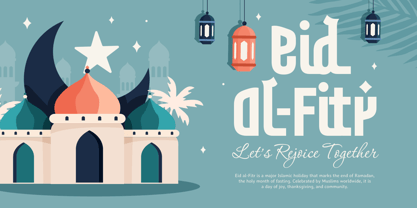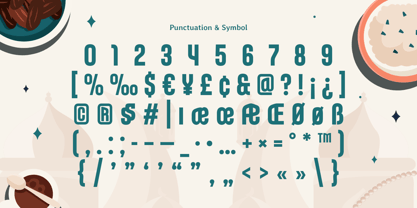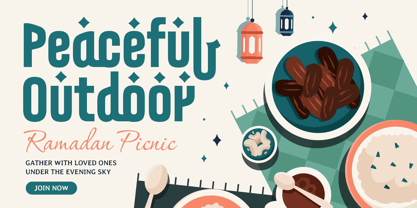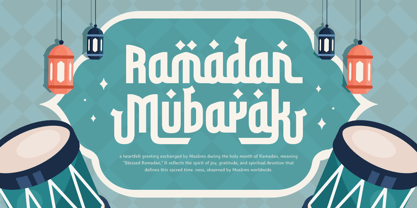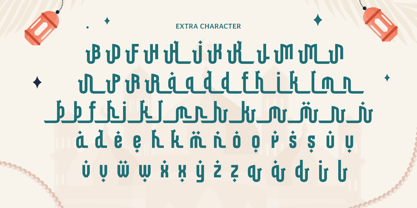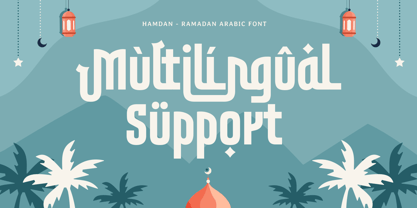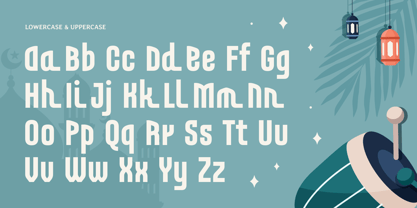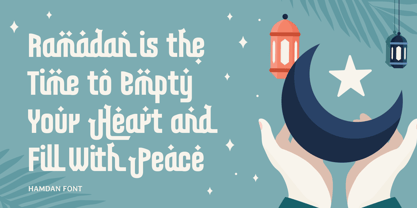
Hamdan
The Hamdan Font Family was designed by Zamroni Hamzah and published by Sensatype Studio. Hamdan contains 1 styles. More about this family
Hamdan - Ramadan Arabic Font
Hamdan is a beautifully crafted Arabic font designed to enrich your Ramadan and Islamic-themed projects. Its stylish curves and modern design make it an ideal choice for festive branding, invitations, banners, and social media content. Whether you're preparing for Ramadan events or creating spiritual messages, Hamdan offers the perfect blend of tradition and contemporary appeal.
Drawing inspiration from classic Arabic calligraphy, Hamdan features clean lines and well-balanced forms, reflecting the essence of Ramadan with grace and style. This font is a versatile choice for both digital and print media, making your designs visually captivating while staying true to their cultural roots.
Let Hamdan bring a touch of authenticity and modernity to your Ramadan creations. Its luxurious character ensures that your projects leave a lasting impression, adding depth and meaning to every message.
Hamdan Ramadan Arabic Font Features:
• Elegant Arabic Script for Ramadan Themes
• Versatile for Branding, Invitations, and Social Media
• Punctuation, Numbers, and Symbols
• Uppercase and Lowercase
• Opentype Features
Multilingual Characters available for:
Afrikaans, Albanian, Asu, Basque, Bemba, Bena, Breton, Chiga, Cornish, Dutch, English, Estonian, Filipino, Finnish, Friulian, Galician, German, Gusii, Indonesian, Irish, Italian, Kabuverdianu, Kalenjin, Kinyarwanda, Luo, Luxembourgish, Luyia, Machame, Makhuwa-Meetto, Makonde, Malagasy, Manx, Morisyen, North Ndebele, Nyankole, Oromo, Portuguese, Quechua, Romansh, Rombo, Rundi, Rwa, Samburu, Sango, Sangu, Scottish Gaelic, Sena, Shambala, Shona, Soga, Somali, Spanish, Swahili, Swedish, Swiss.